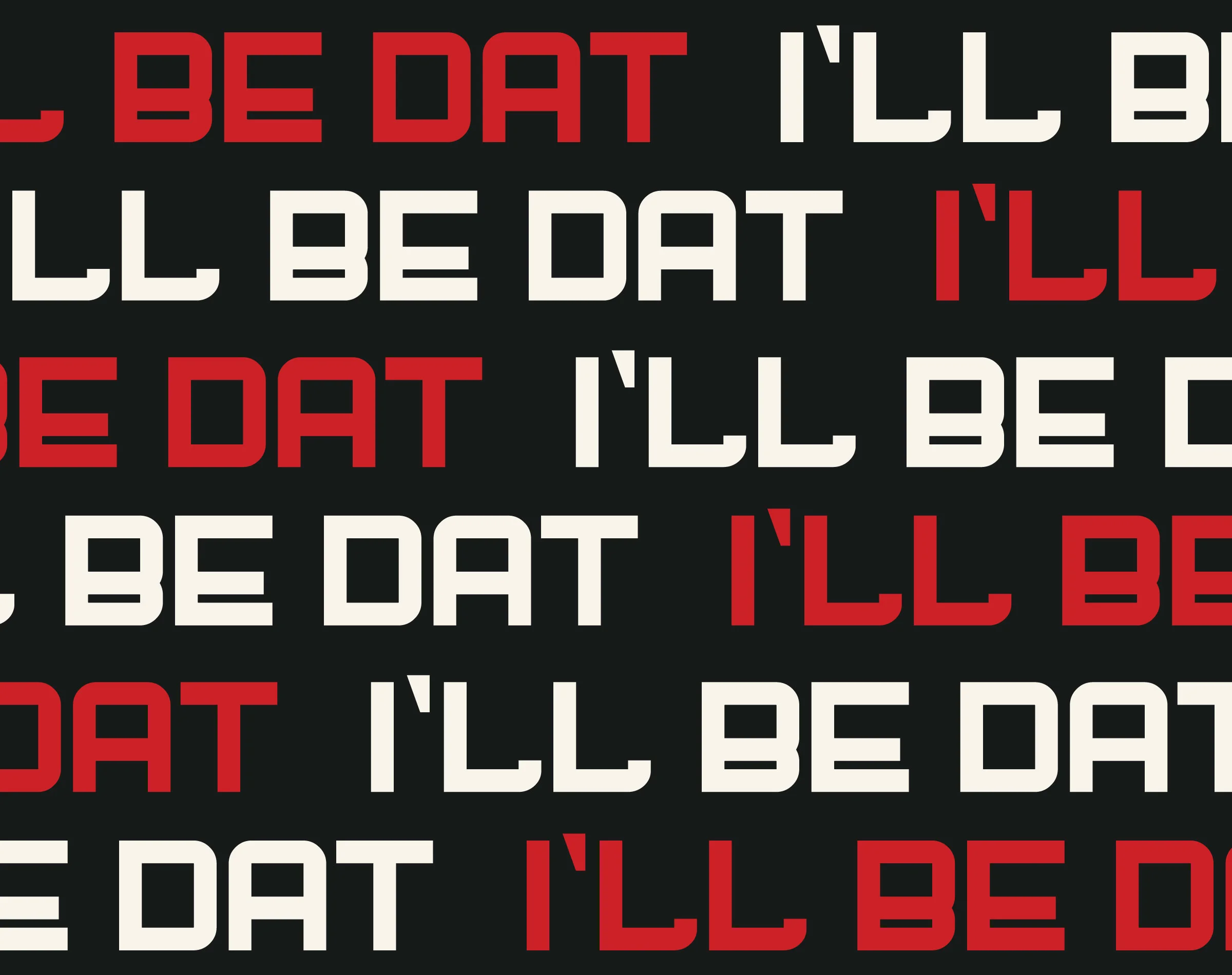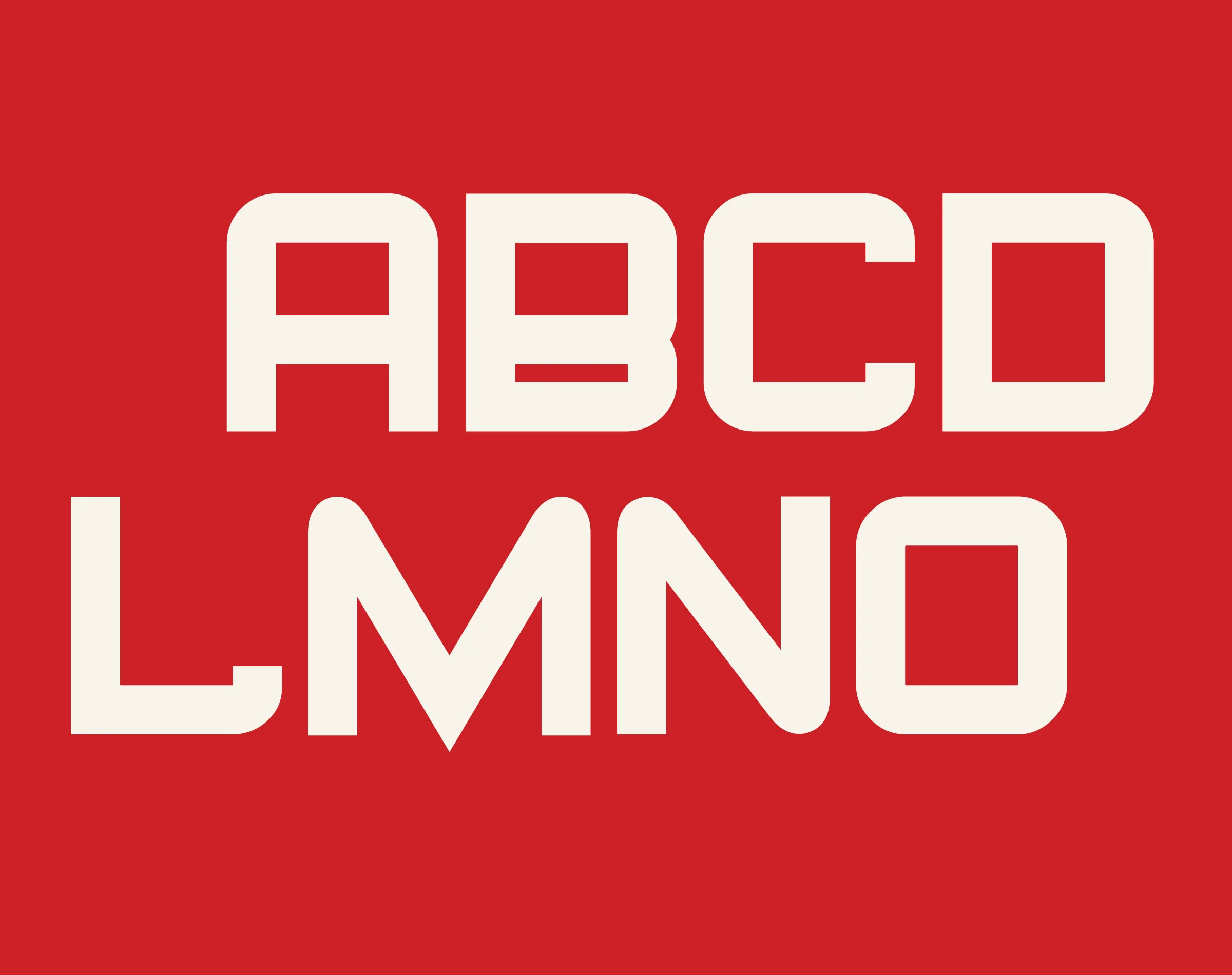
Gorila
If you gonna be a monkey, be a gorila. Gorila is a FREE bold tech-driven display font built for sports, titles, and anything that needs to hit hard. Use it for ad type, logos, headlines, or anything that needs to own the room.